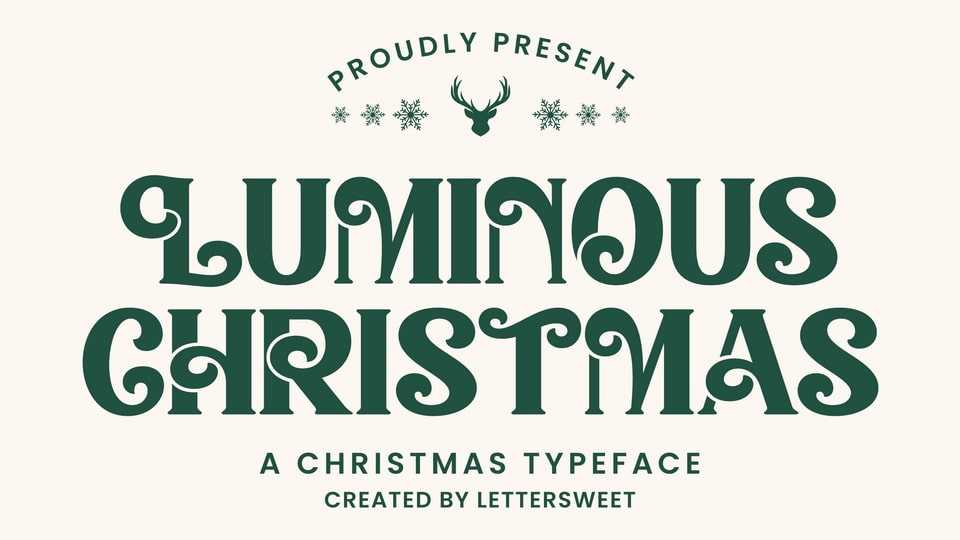
Download Luminous Christmas font, a Christmas display typeface that feels warm, playful, and elegant at the same time. Its bold letterforms with sweet swirling curves bring a classic vintage–poster vibe